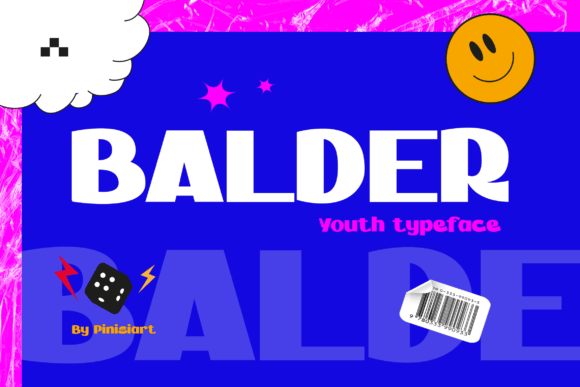
Presenting Balder Font - The Enchanting Display Font for Movie Captions
Unleash your creativity and step into a world of captivating storytelling with Balder Font, the ultimate display font crafted specifically for movie captions. Dive into a realm where words dance across the screen, leaving an indelible mark on your audience's minds.
With Balder Font's playful and youthful spirit, you can effortlessly weave tales that resonate with your viewers. Its vibrant personality will bring life to your movie captions, transforming them into visual feasts that enhance the overall cinematic experience.
Explore the boundless possibilities of Balder Font and let your imagination soar. Craft unique t-shirt designs that speak volumes, adorn baby onesies with playful messages, and create enchanting nursery decorations that spark wonder in young minds. Embark on digital design adventures, creating captivating graphics that leave a lasting impression. Design greeting cards that touch hearts and spread joy. The versatility of Balder Font knows no limits.
Dive into the world of Balder Font and witness the magic of storytelling unfold before your eyes. Let your creativity flourish as you craft movie captions that captivate and engage your audience. Experience the transformative power of this enchanting display font and embark on a journey of visual storytelling like never before.